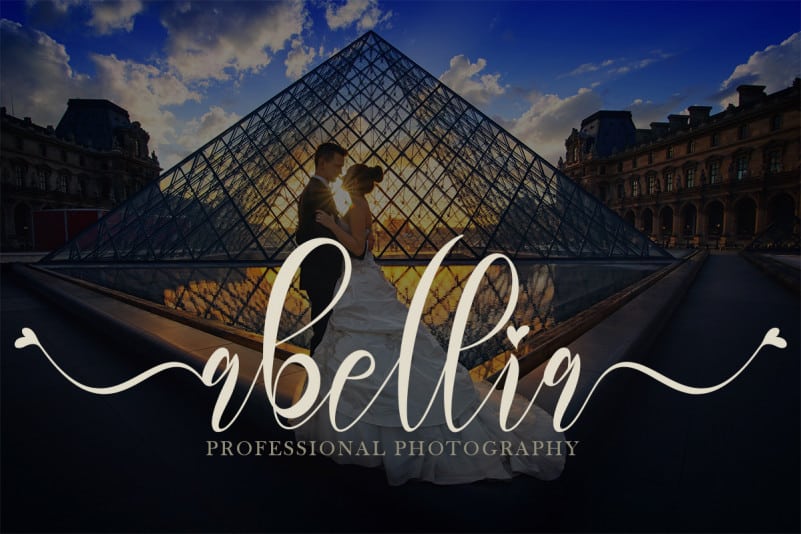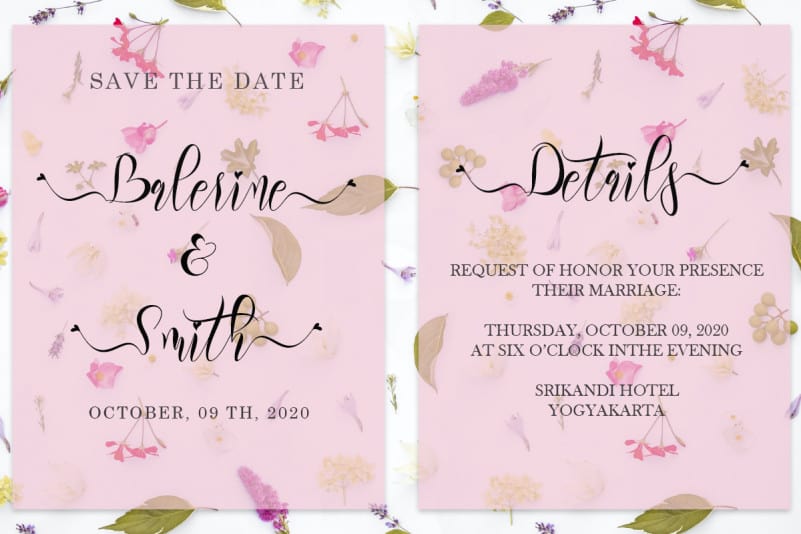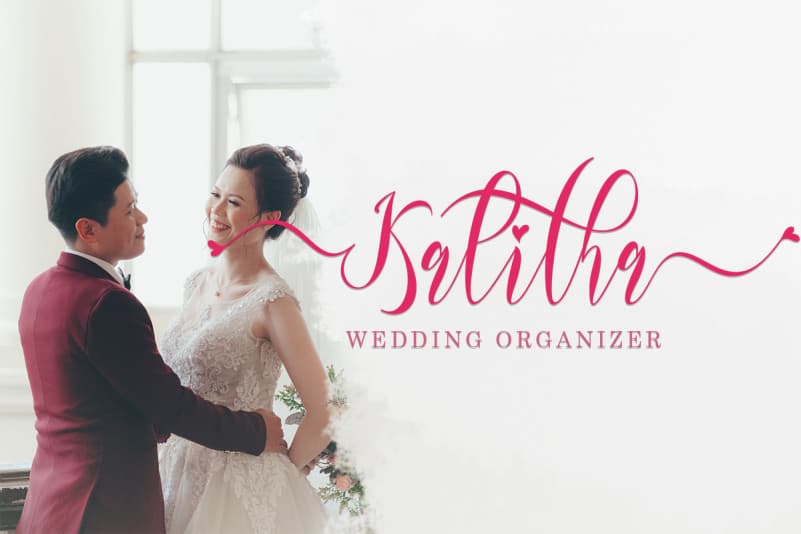
This pretty font is called Rillilove Calligraphy Font. Rillilove is a very beautiful, refined, elegant, and high-quality font. This font is made with great love. This font can make your work more beautiful and elegant. This font is perfect for all wedding needs, marketing your products, marketing all your business, creating quotes, invitation cards, logos, branding, updating on holiday moments, status updates on social media, and more.